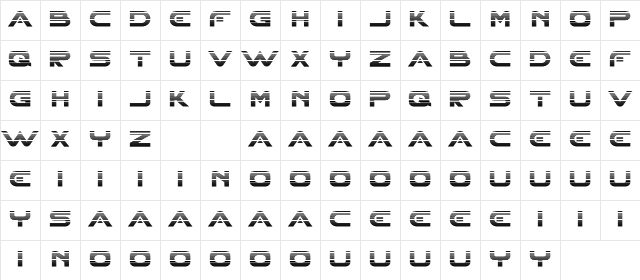
XHARP Demo Gradient Regular
| Foundry | Edric Studio |
| Designer | Ega nugraha |
Design Context for XHARP Demo Gradient Typeface
XHARP Demo Gradient offers clean, dependable letterforms without strong stylistic allegiance, making it a practical choice for designers who need flexibility.